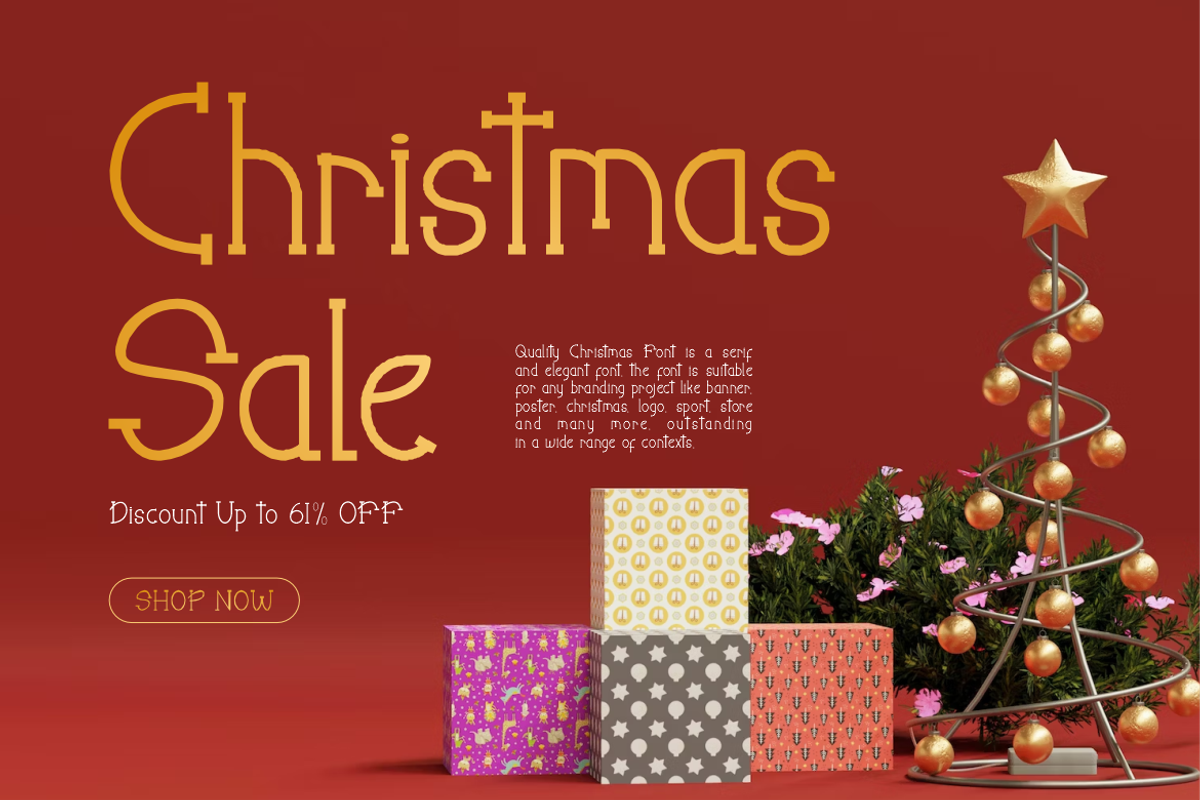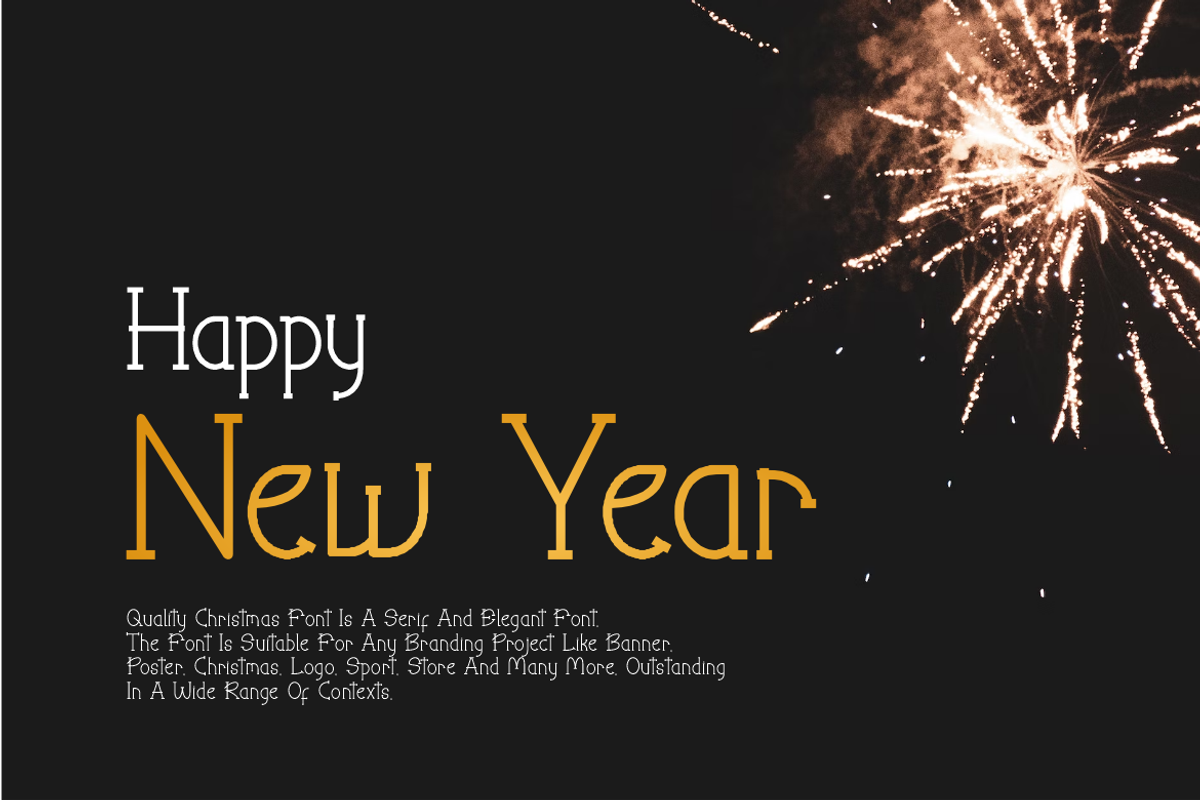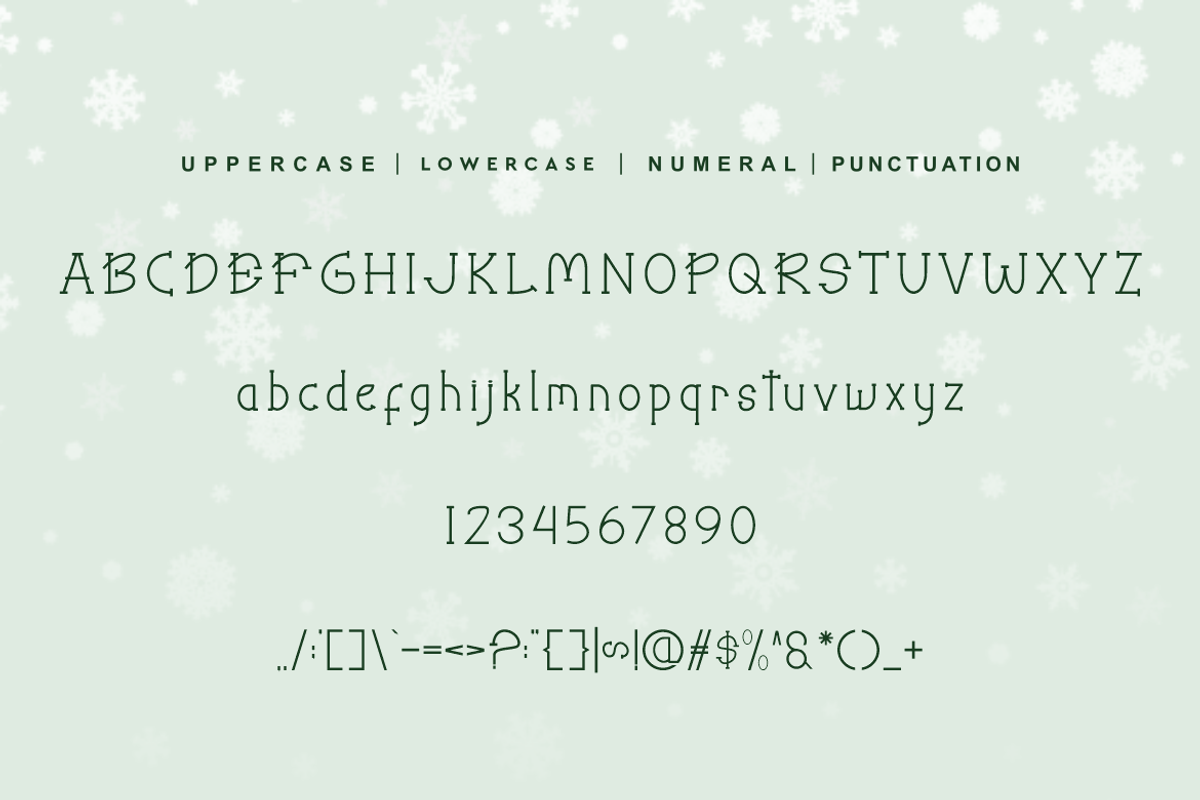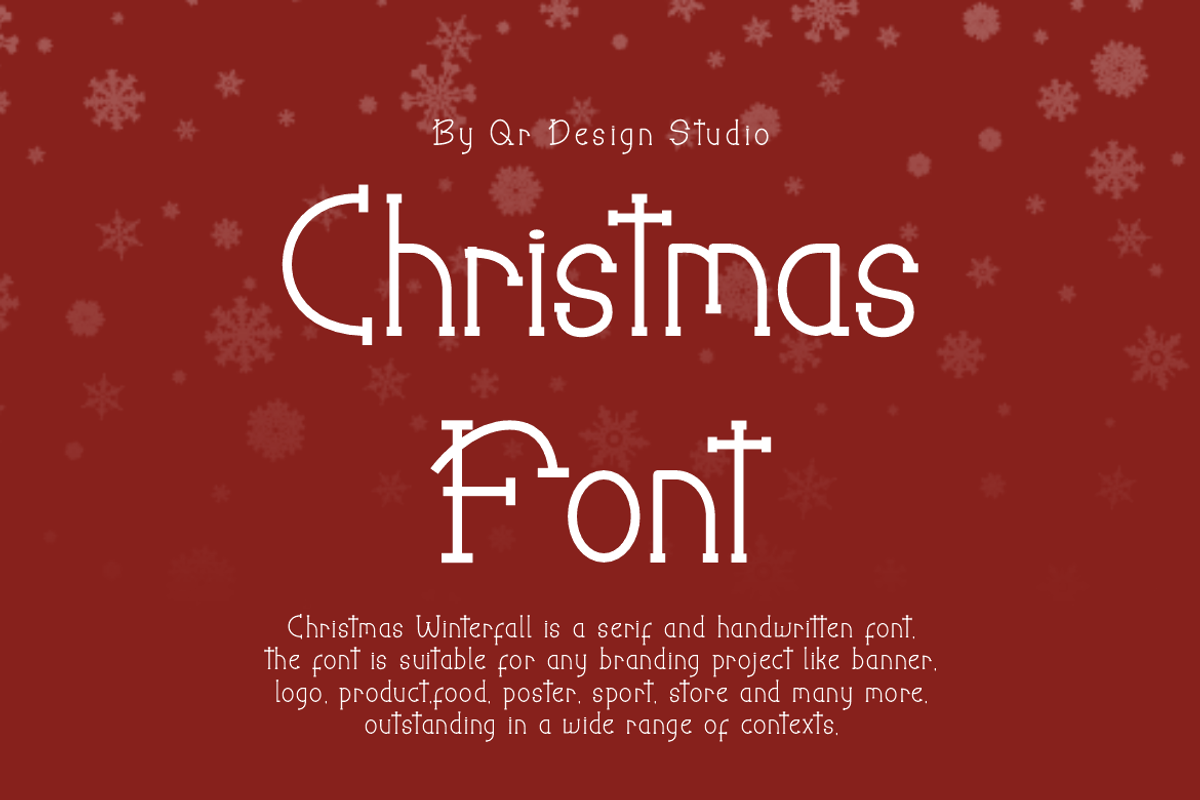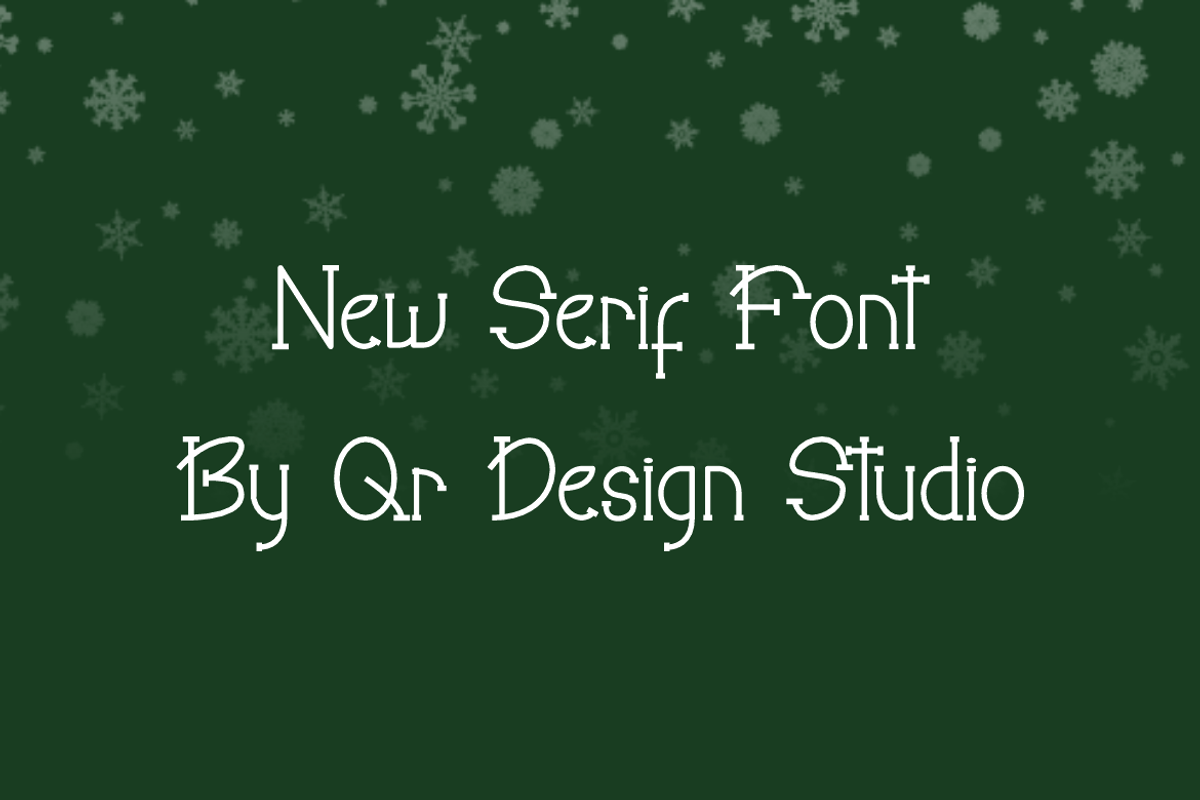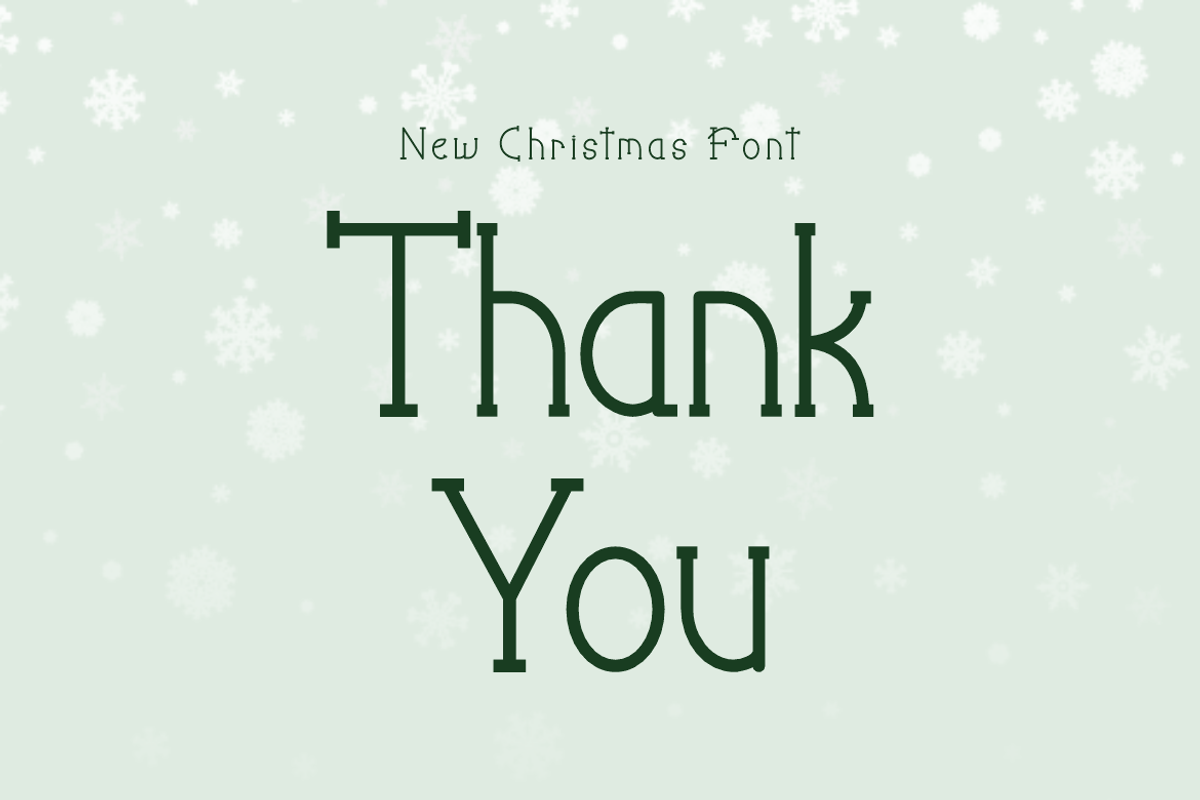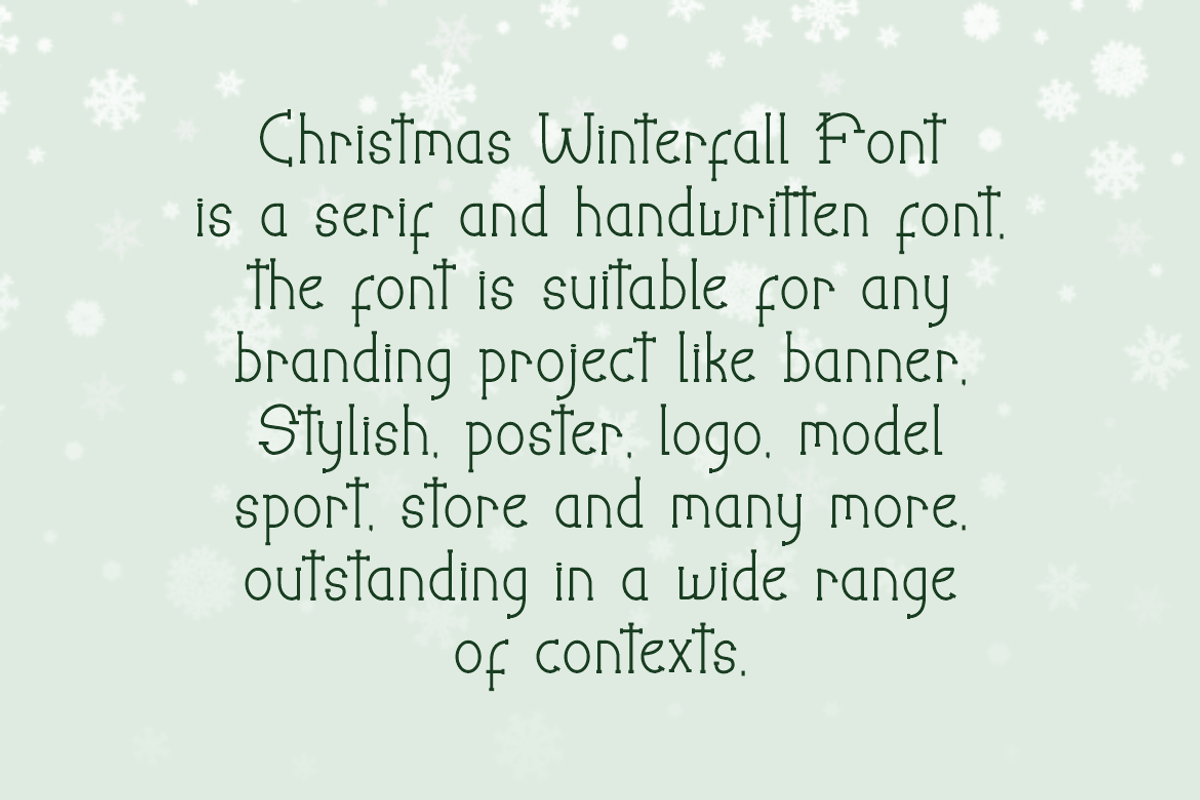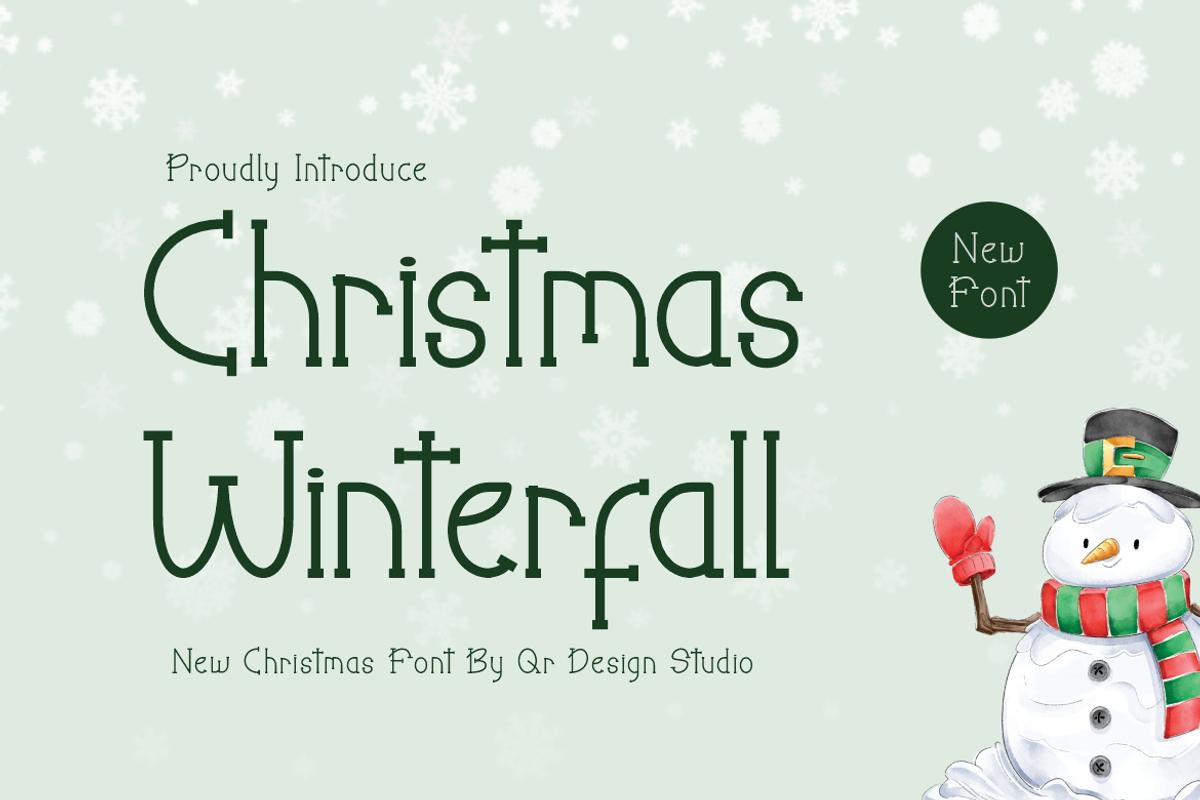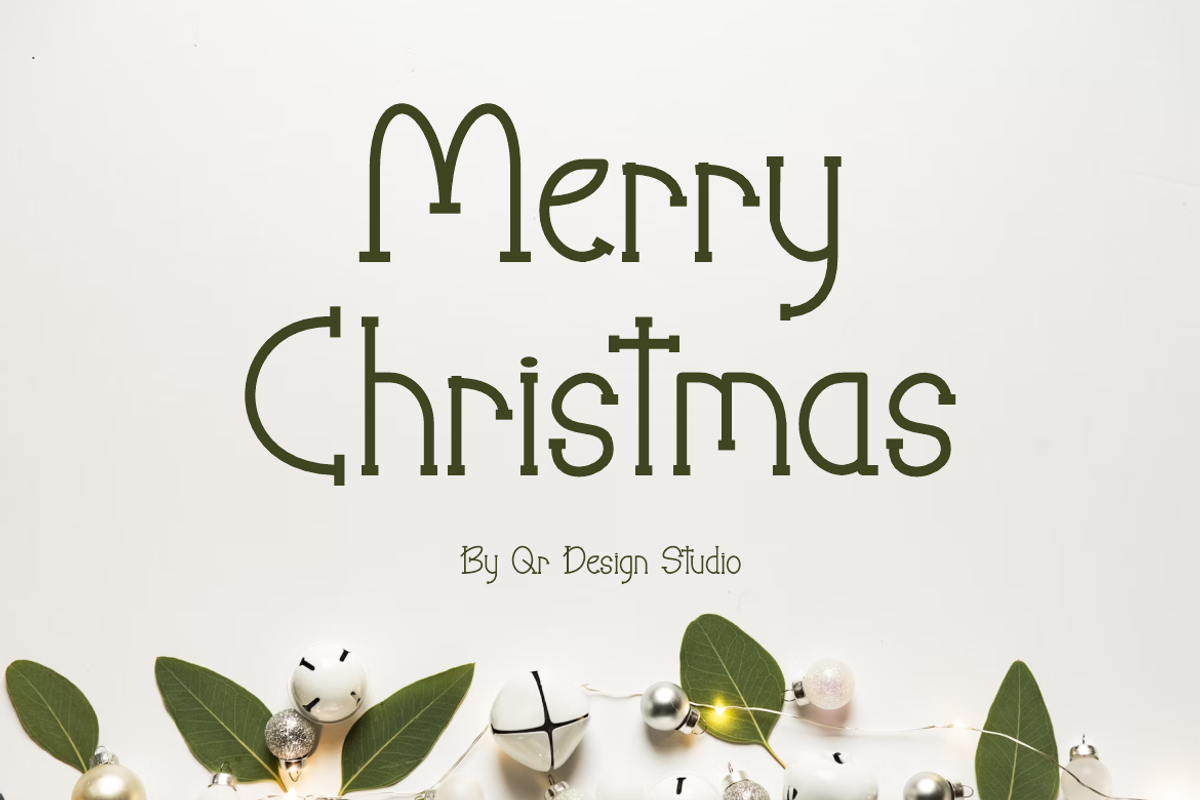
Christmas Winterfall
Christmas Winterfall Font is a serif and authentic display font. The font is suitable for any branding project like christmas, poster, logo, sport, and many more. Outstanding in a wide range of contexts.